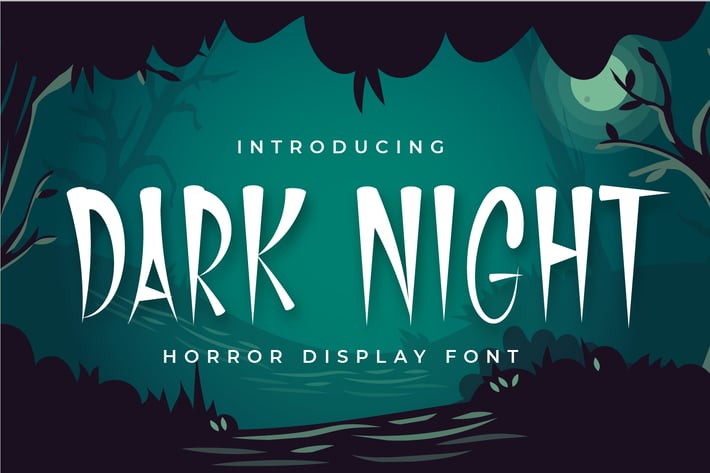
Dark Night - Horror Display Font
Introducing Dark Night - Horror Display Font
Dark Night is a horror display font, which is perfect for movies, horror posters and also suitable for Halloween themes. It will look amazing in any context, whether it’s used against a busy background or as a standalone headline!